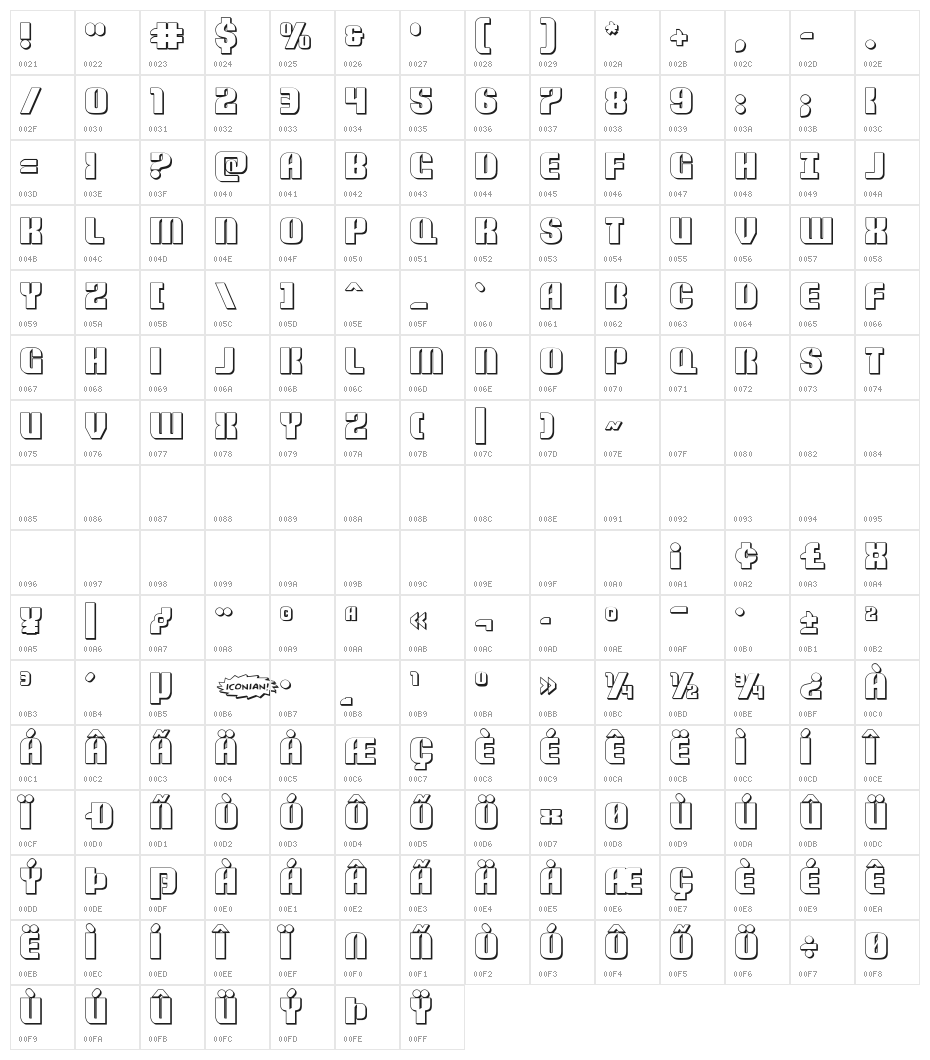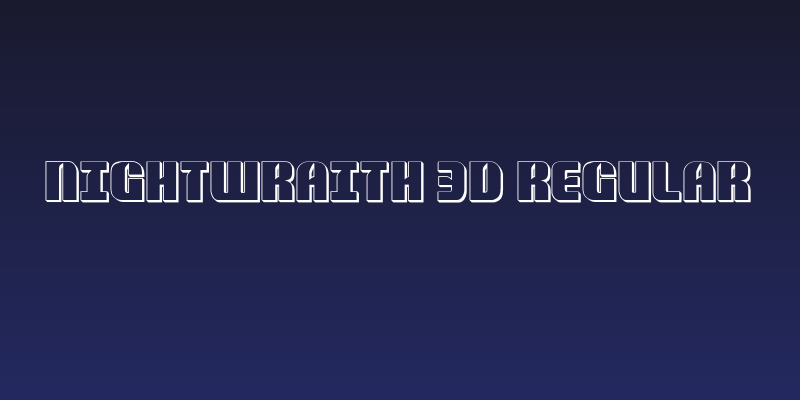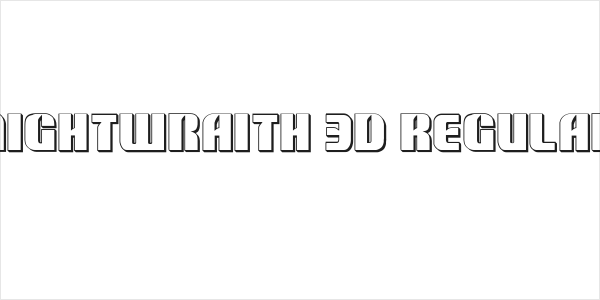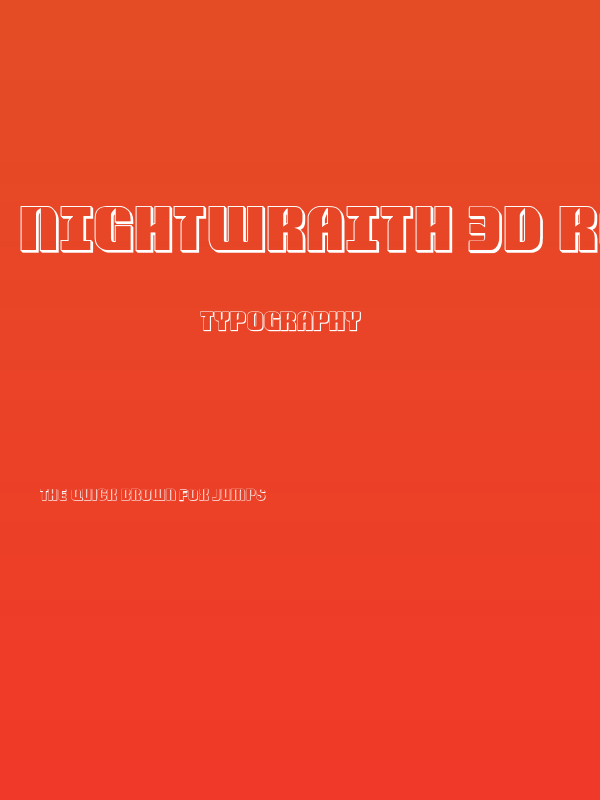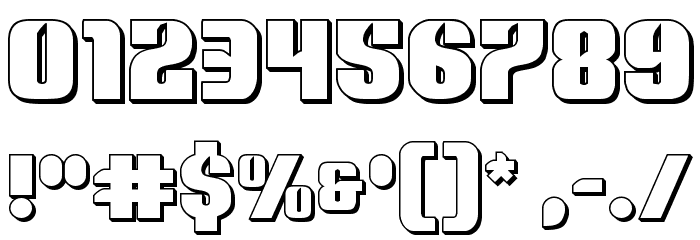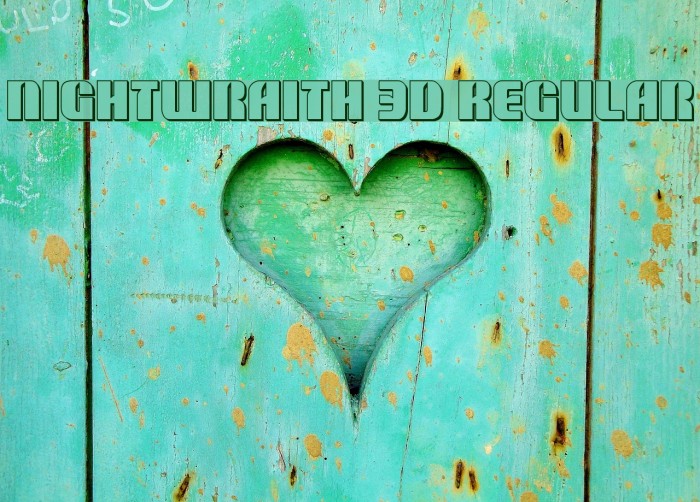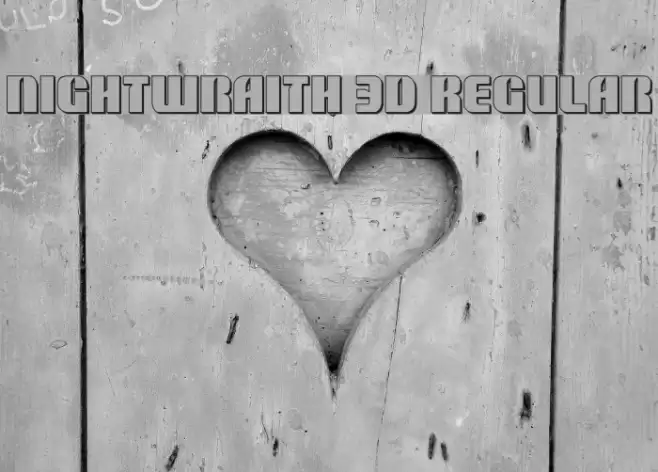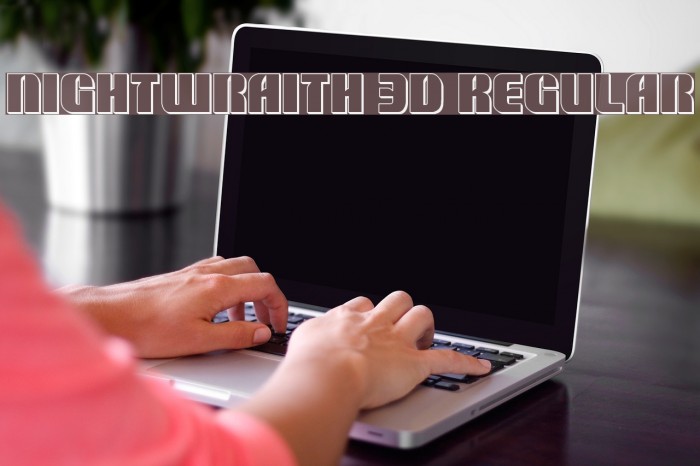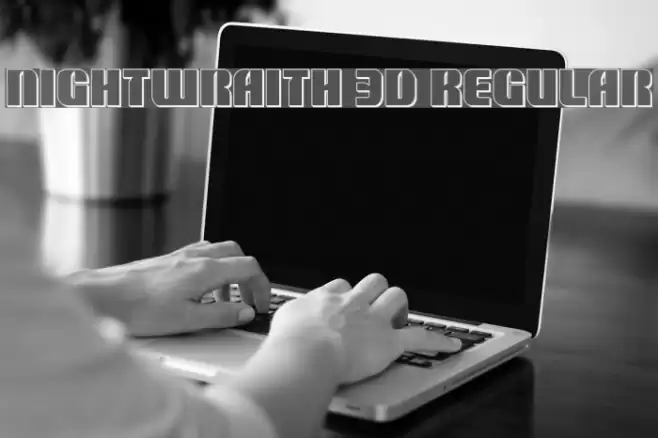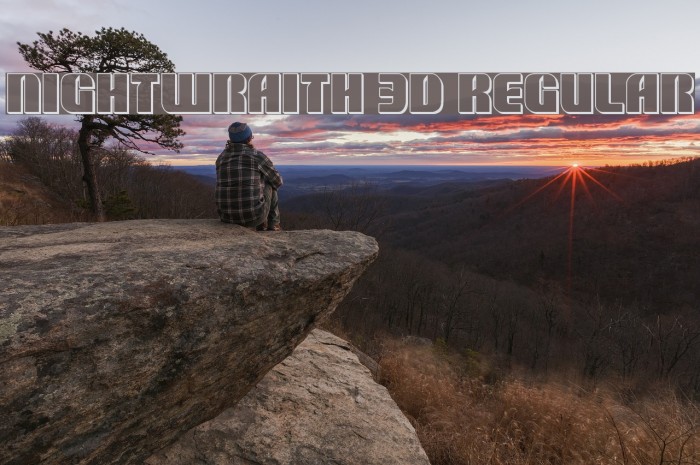
Nightwraith 3D Regular Font
Nightwraith 3D Regular Description
This font features a bold, three-dimensional style with a strong, impactful presence. Each character is outlined with a thick border, creating a shadow effect that gives the font its 3D appearance. The letters are uppercase, with a geometric and blocky design that emphasizes straight lines and sharp angles. The font's unique style makes it stand out, ideal for attention-grabbing headlines or titles. Its distinct appearance is both modern and slightly futuristic, making it suitable for projects that require a bold and dynamic look.
| Proposed Projects | Ideal for posters, logos, video game titles, and any project needing a bold, eye-catching typeface. |